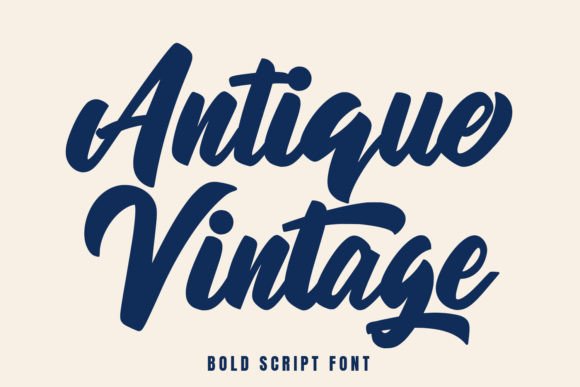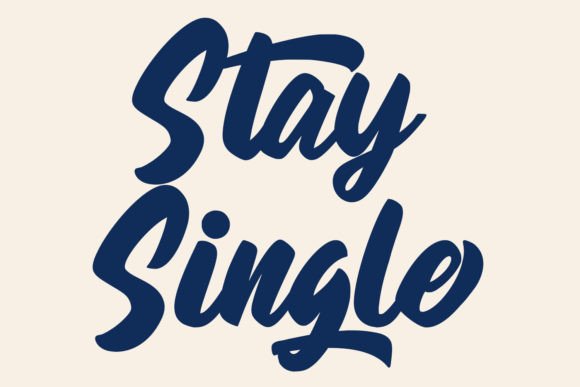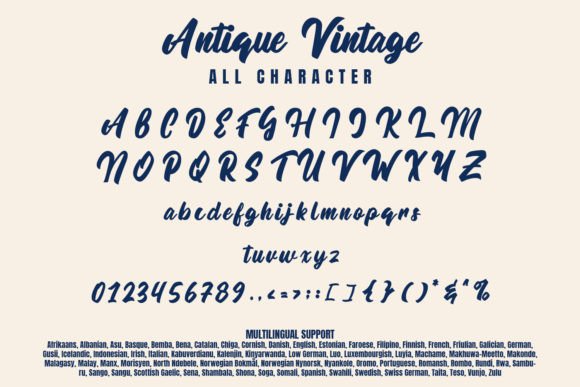
Antique Vintage Font
Antique Vintage is a brush script font that features thick and prominent strokes, giving it a bold and impactful appearance. The letters are usually interconnected, creating a flowing and handwritten look.